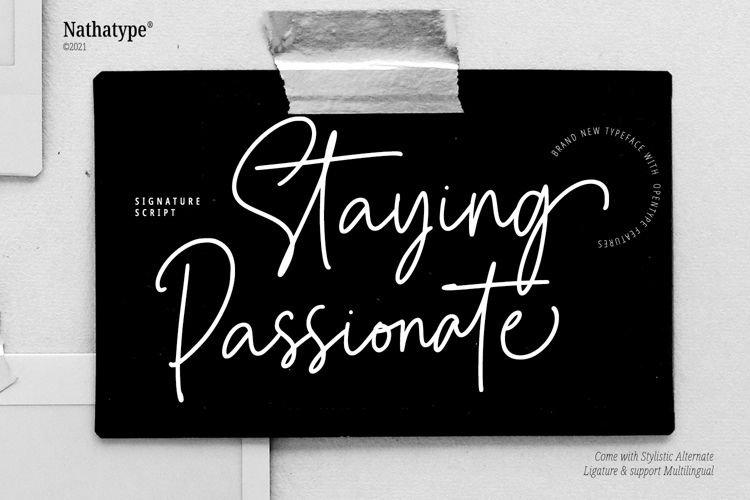
Staying Passionate Font
Product Description:
Your branding will spark delight and engage everyone who sees it! Introducing “Staying Passionate” – A Script Font.
A beautifully handcrafted font that’ll make your guests sing and elevate your projects! Every stroke, and curve was created to entice happiness and elegance.
Features:
• Ligatures
• Stylistic Sets
• PUA Encoded
• Numerals and Punctuation